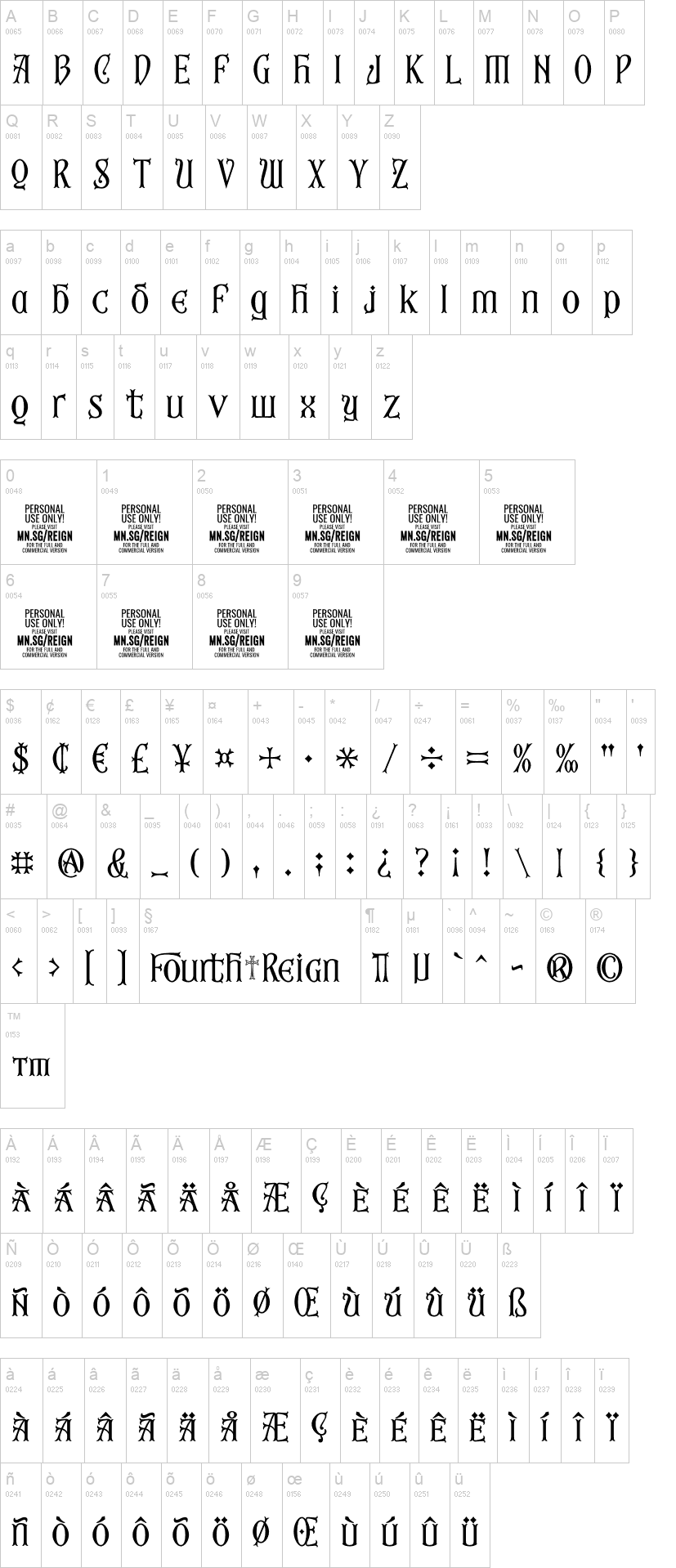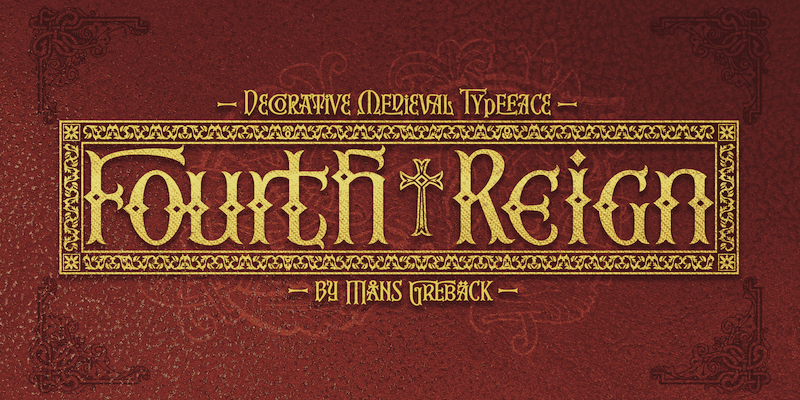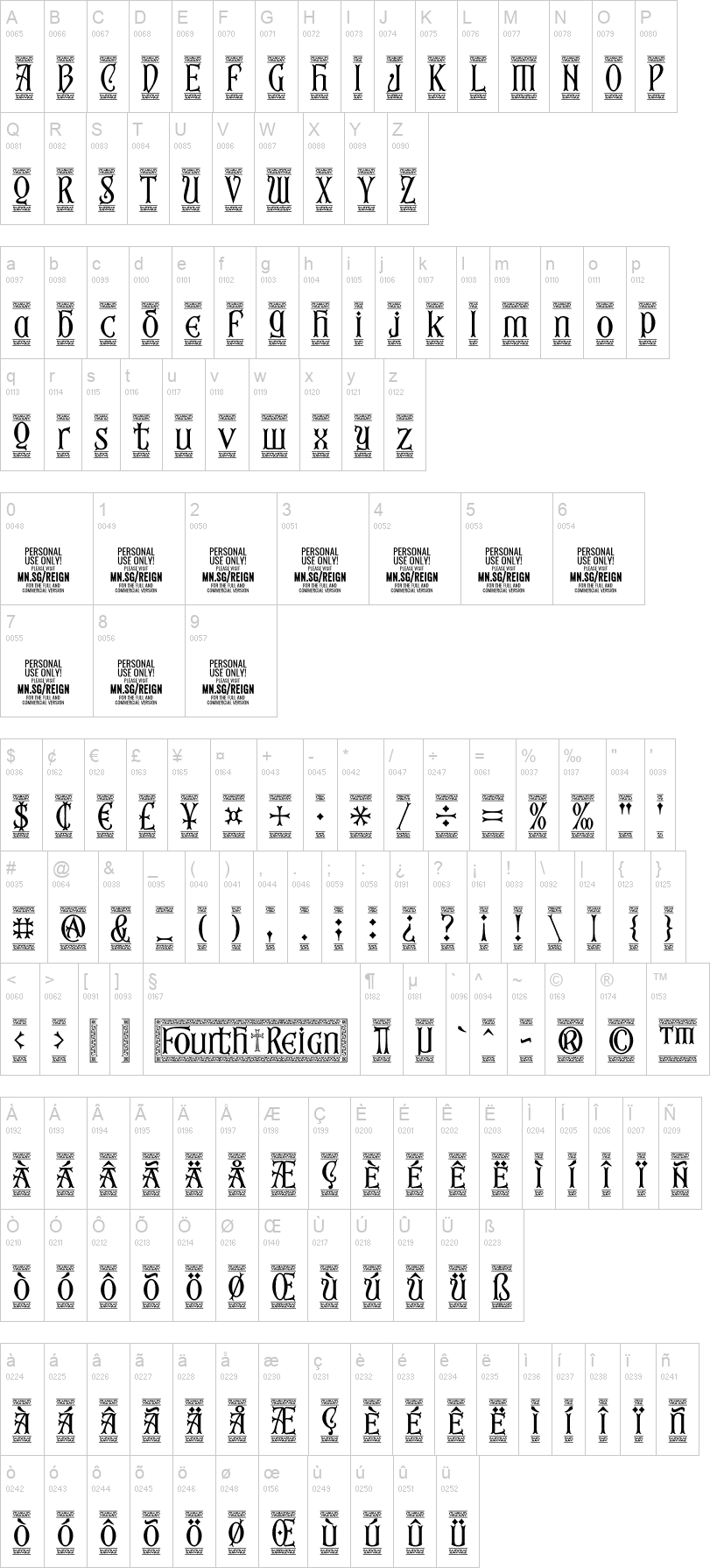
To make heraldic symbols, copy these icons: 🐉 🐎 👑 🗡 🦁 🦅 🦌 + ♖ × ✝ ⚓ * ⚔
Alternatively write %A %B %C ... etc to create the heraldry. (Download required.)
Dragon, Horse, Crown, Sword, Eagle, Deer, Cross, Anchor are some of the logos.
Use [ ] for side borders.
Example: [Royal⚔Thrones]